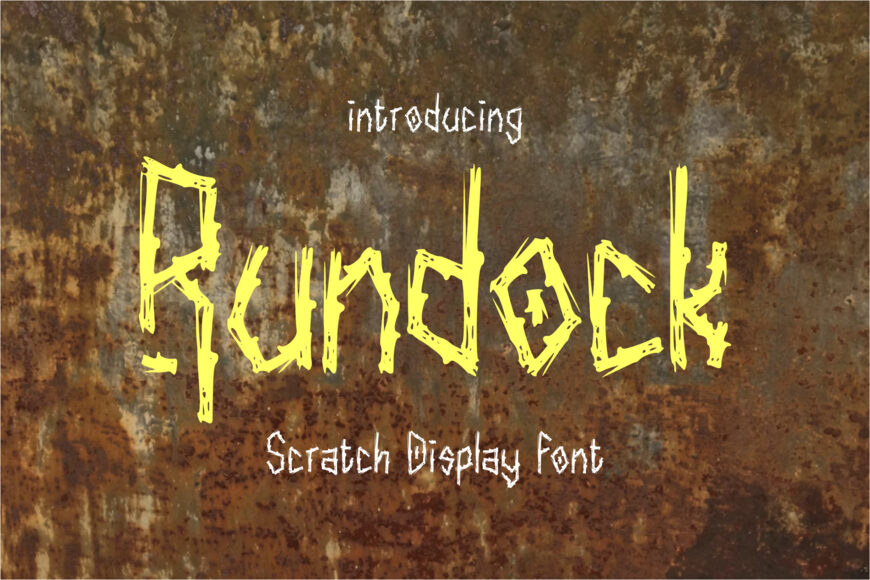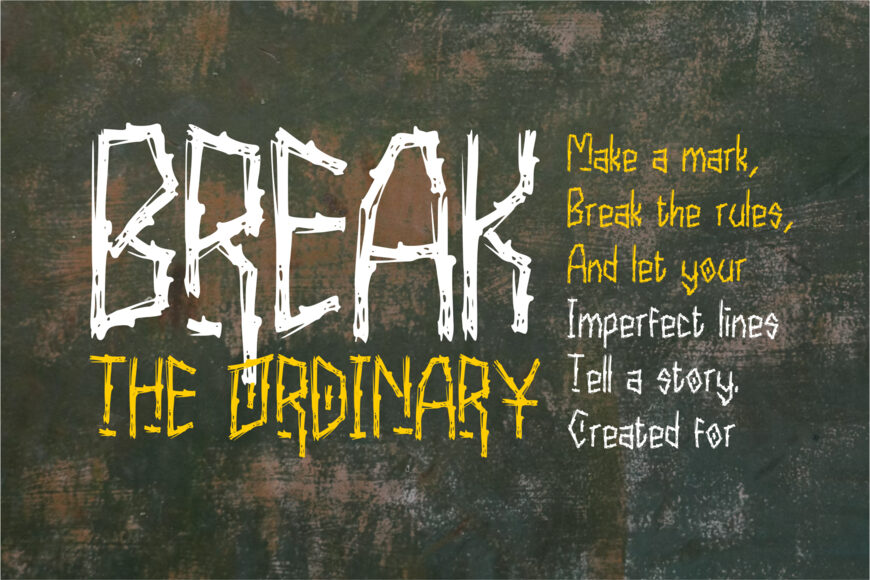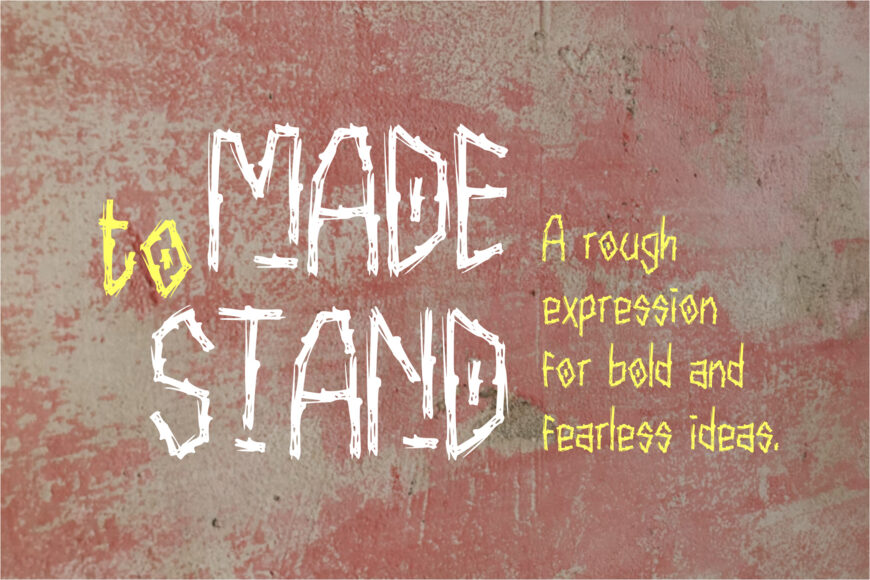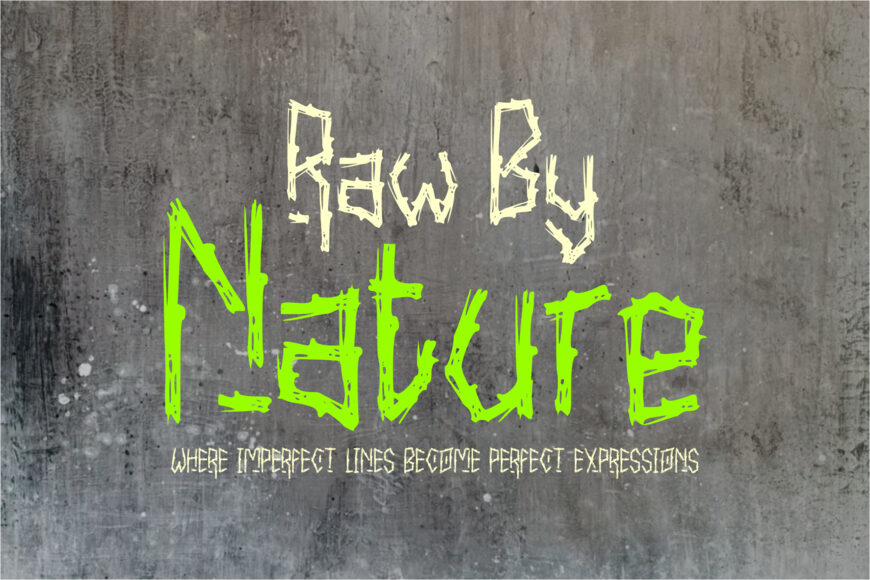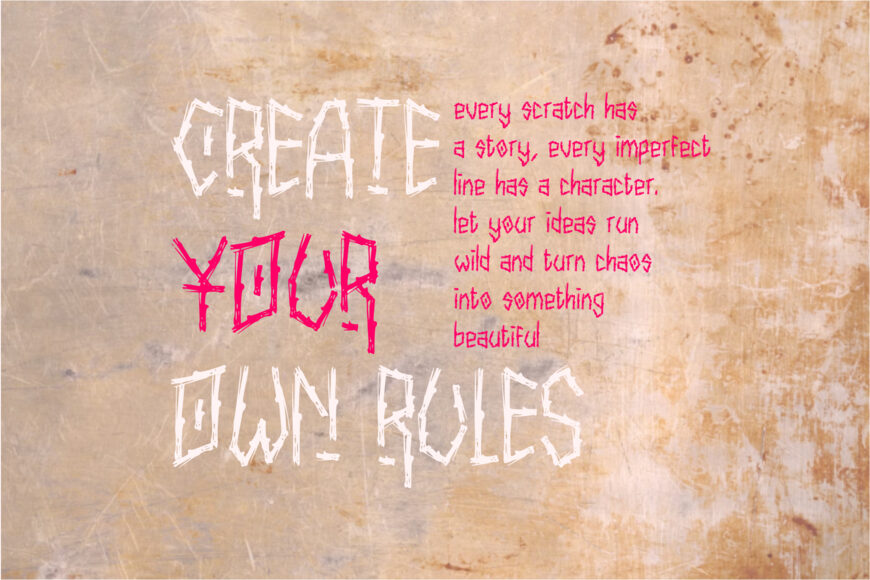
Rundock is a raw and expressive scratch display font designed to bring a rebellious, handcrafted character to bold visual compositions. Its irregular strokes, rough edges, sharp details, and distressed texture create an intentionally imperfect appearance that feels energetic, wild, and authentic.
Inspired by hand-scratched lettering and underground visual aesthetics, Rundock works especially well for designs that need a strong alternative personality. Its distinctive letterforms make it suitable for posters, album artwork, band branding, streetwear graphics, merchandise, event flyers, editorial headlines, logos, packaging, and experimental creative projects.